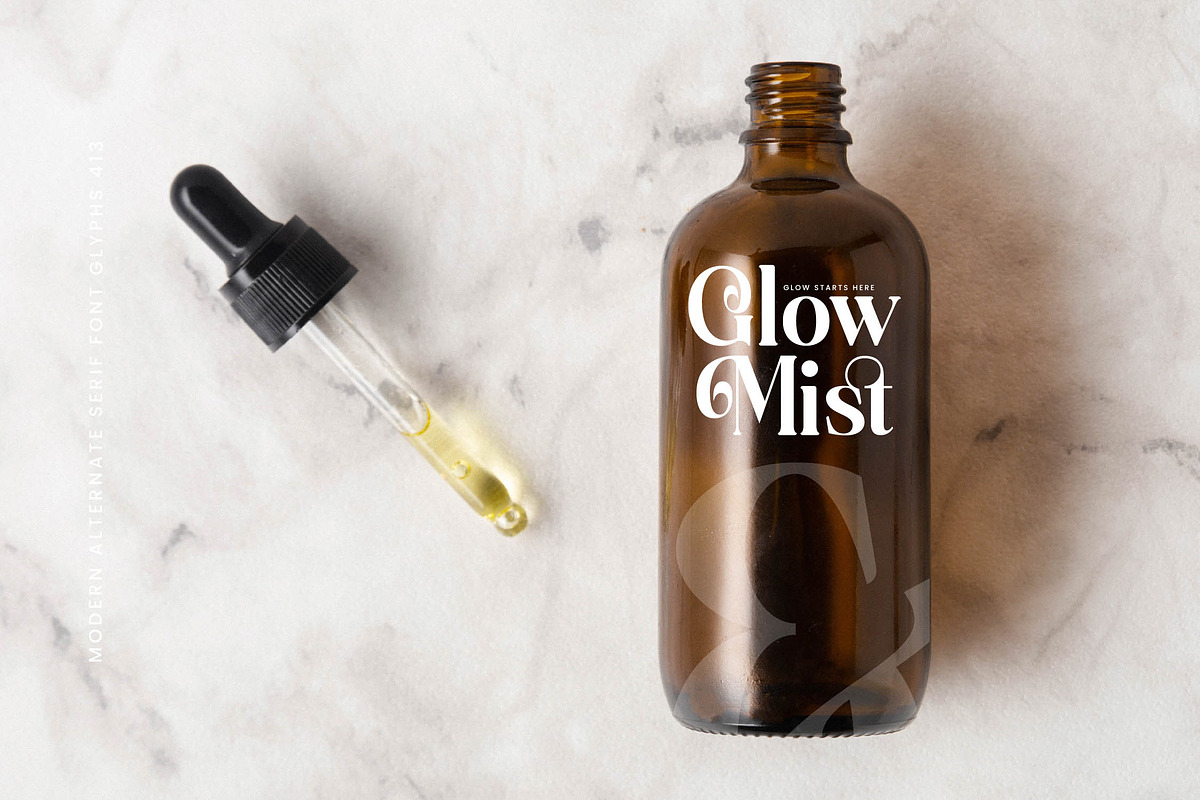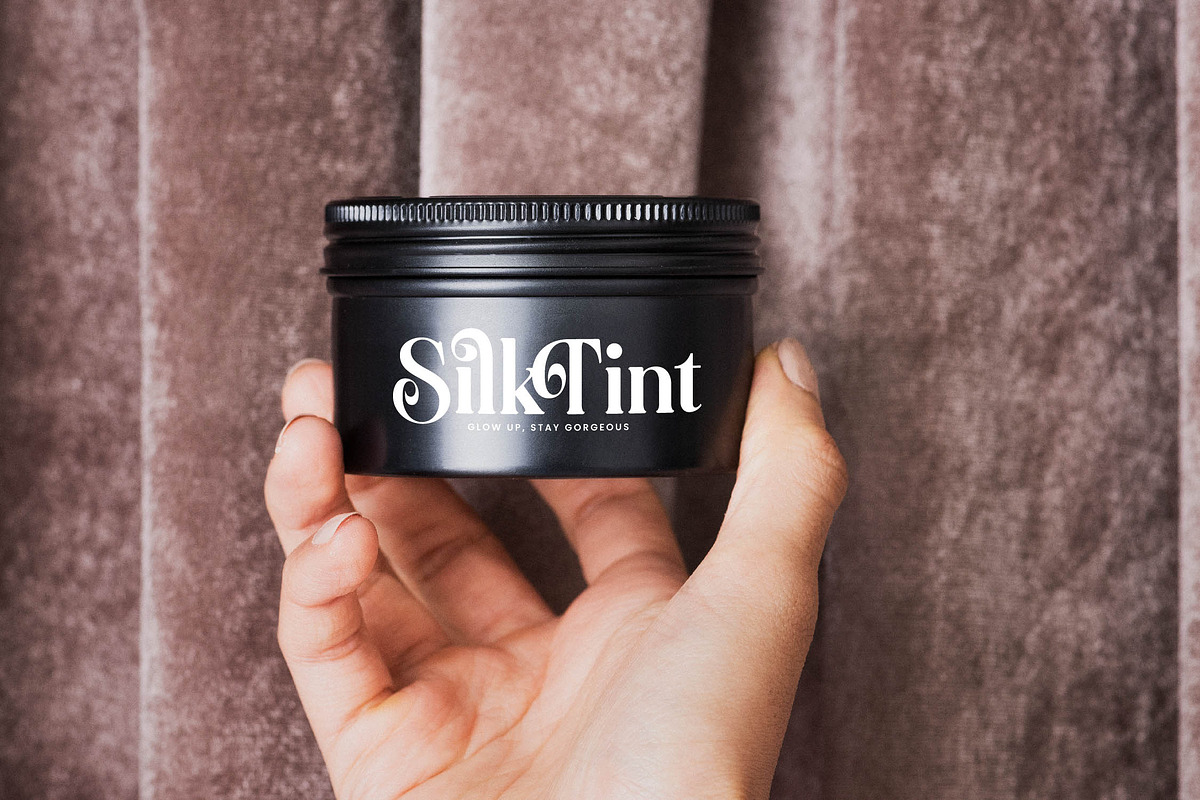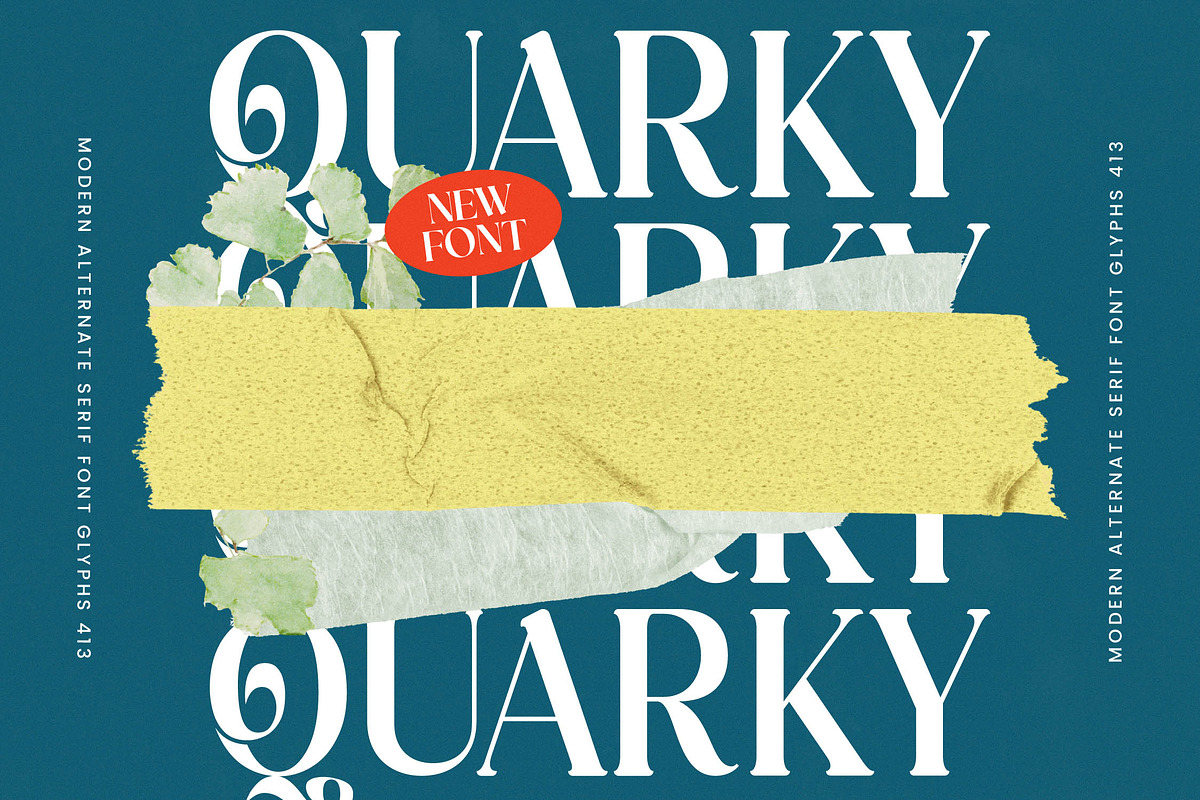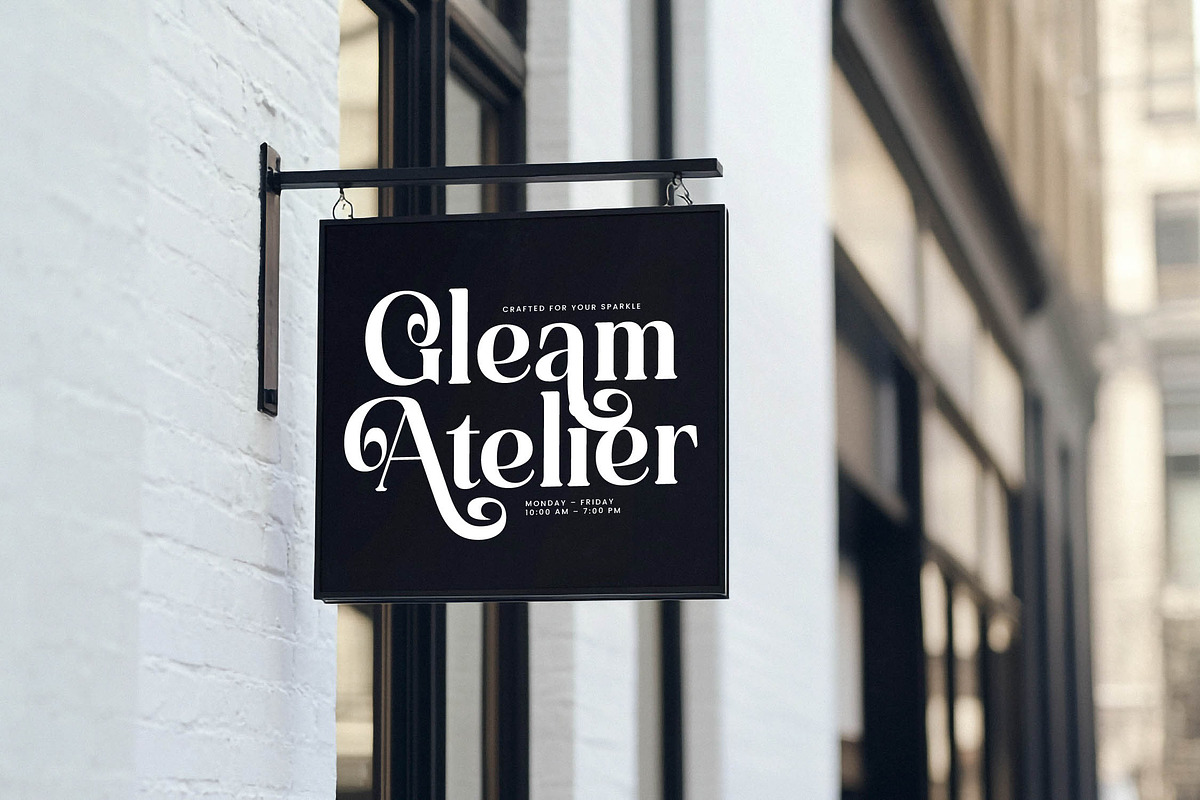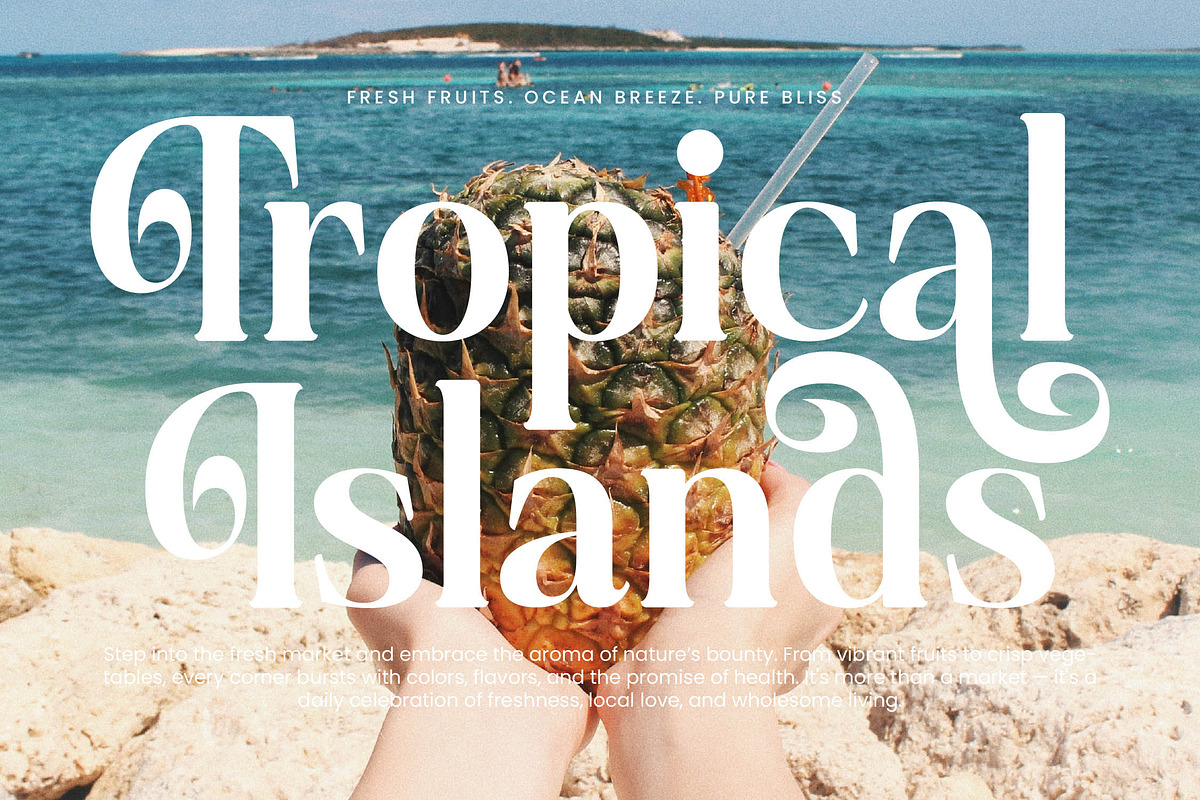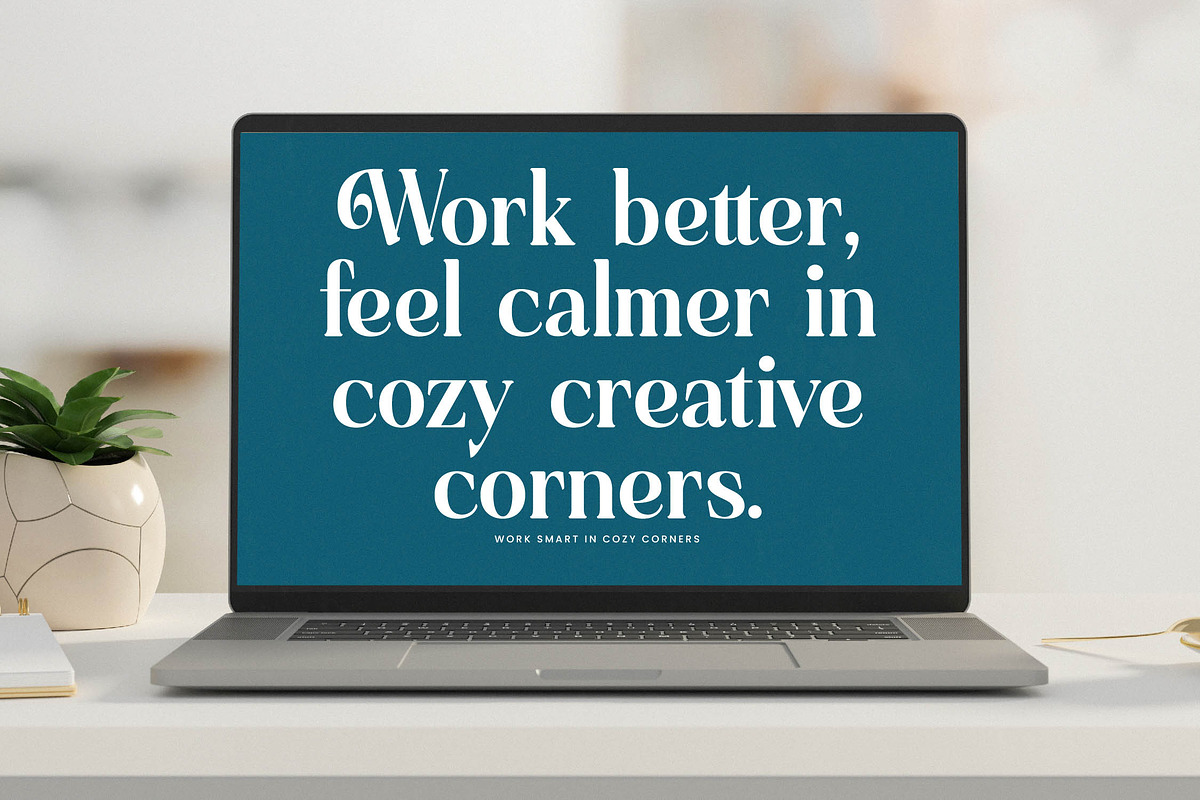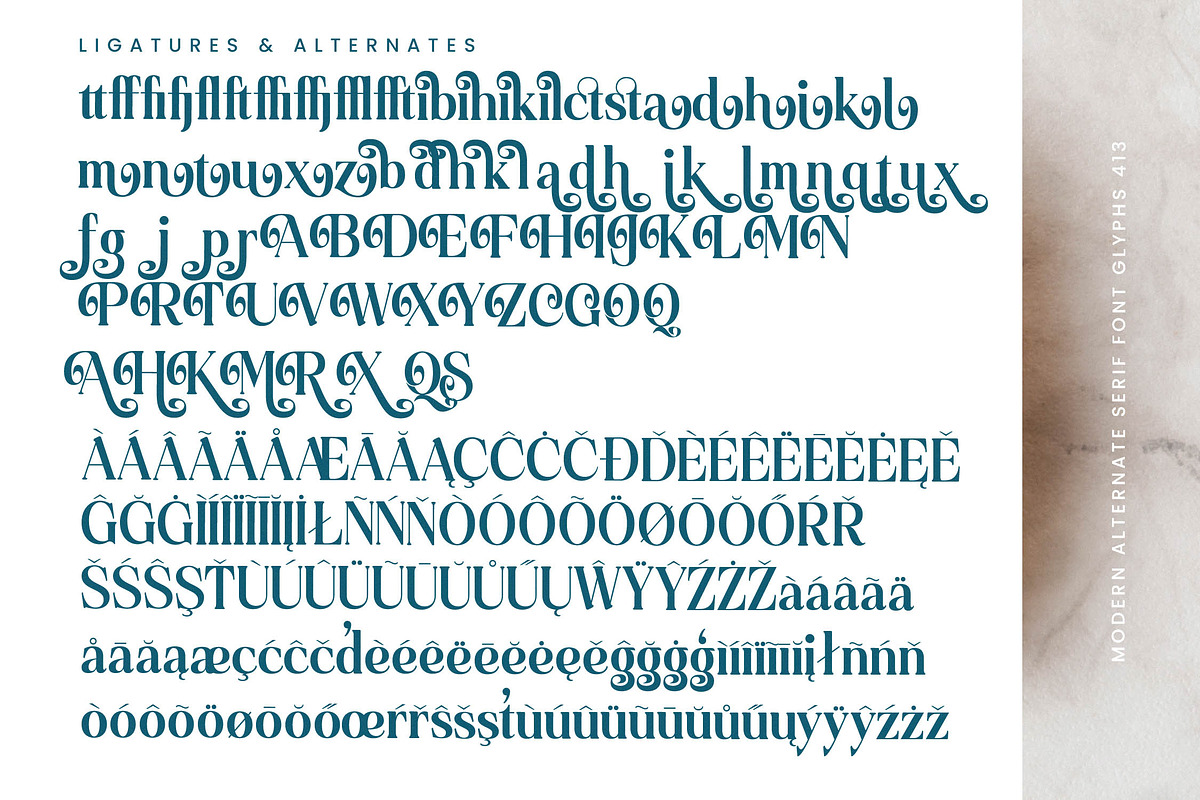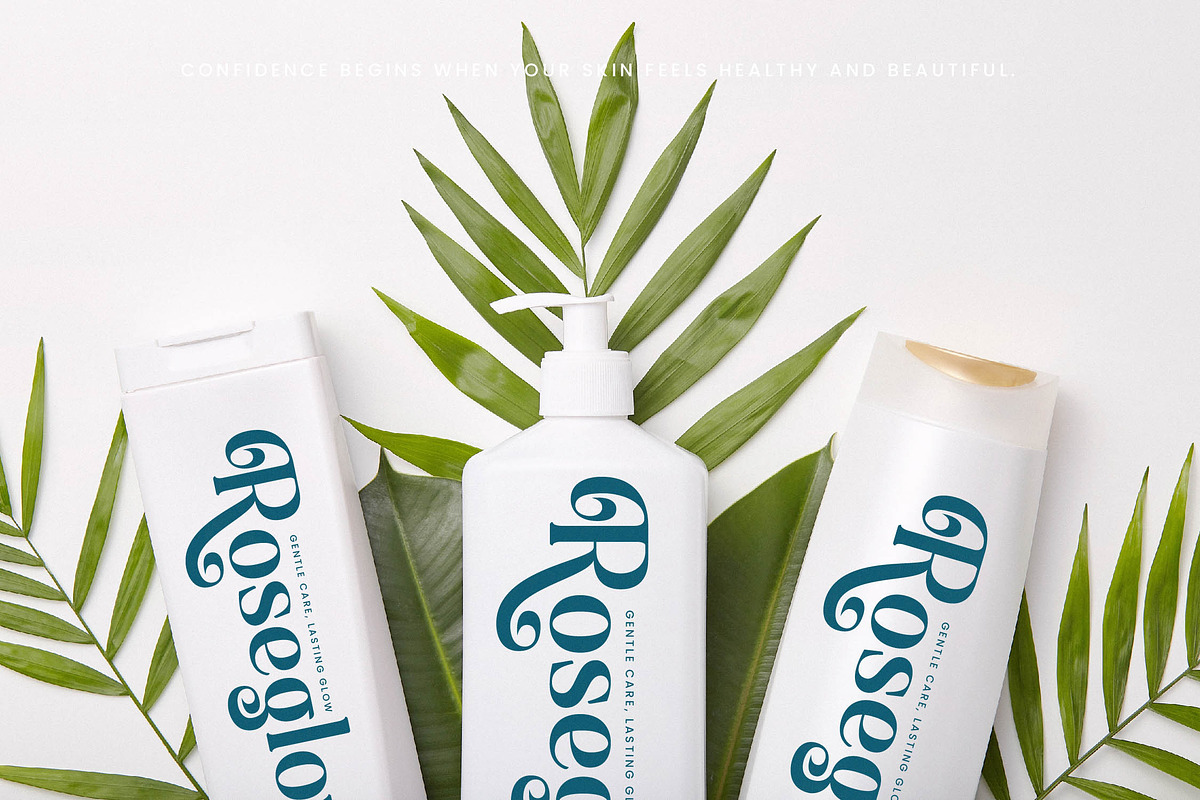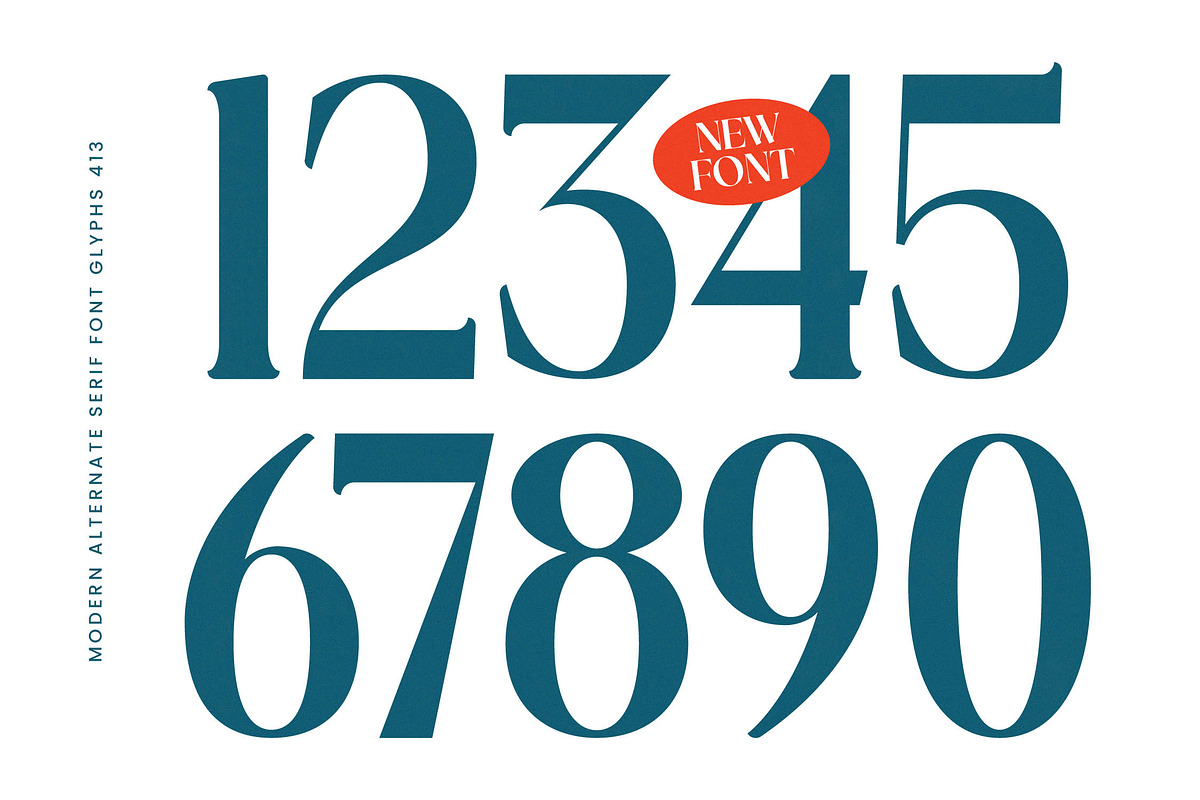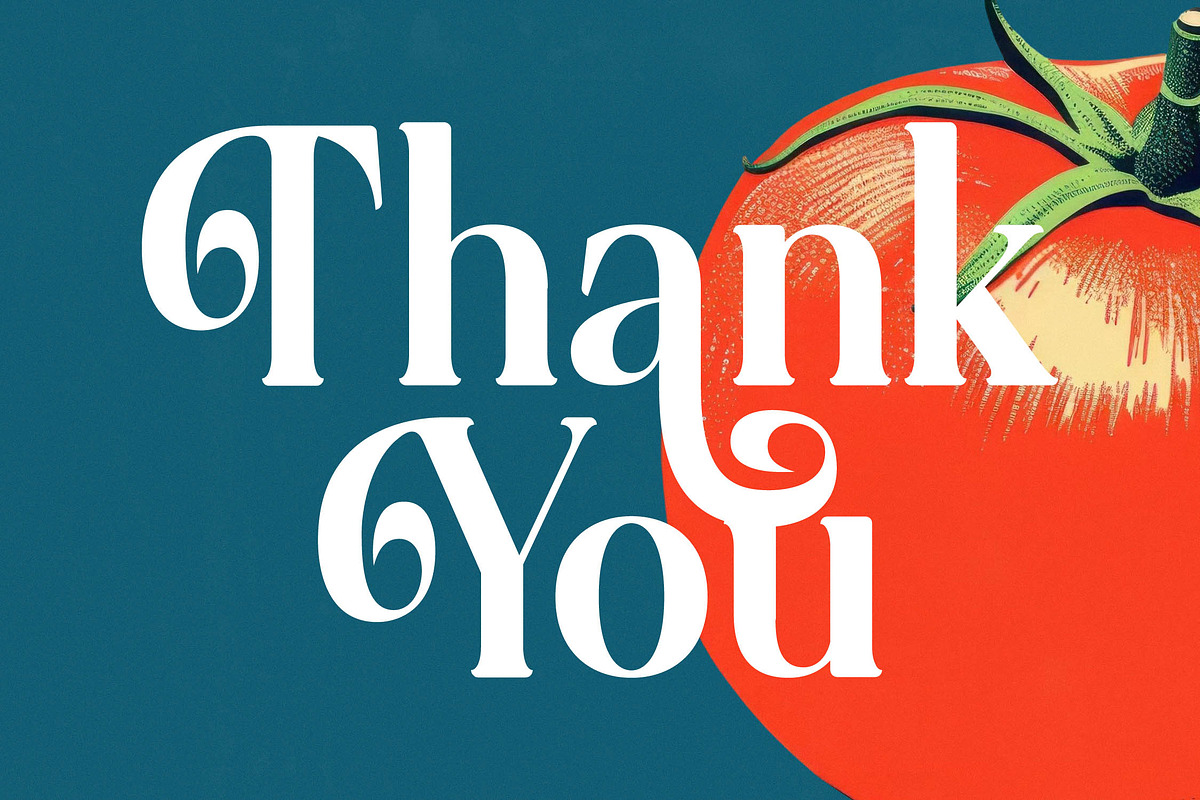
Quarky Kitchen Modern Serif Font
Elevate your creative vision with Quarky Kitchen, a font that dances between classic elegance and modern whimsy. It is the perfect blend of sophisticated curves and bold personality designed to make every word an art piece.
Inspired by the organic shapes of culinary artistry and the vintage charm of mid-century bistro signage, this typeface captures a unique quirky spirit. Its design reflects a balance of sharp serifs and flowing, liquid-like swashes that evoke a sense of handcrafted luxury found in high-end artisanal kitchens.
This modern serif display is engineered for maximum branding impact, offering a level of sophistication rarely seen in standard typefaces. With its high-contrast serif strokes and refined letterforms, it functions as a premium editorial font that commands attention while maintaining a sense of luxury typography.
Staying ahead of the modern serif trend, this typeface meets the demand for character-driven typography that breaks away from minimalist boredom. It aligns perfectly with the current shift toward editorial display fonts that prioritize expressive details and unique visual hooks for high-end digital media.
Ideally suited for high-end logo design and comprehensive branding projects, this font shines in the world of packaging and luxury fashion advertisements. Its romantic yet sharp flair also makes it a stunning choice for wedding invitations and high-concept editorial layouts.
The set is packed with over 400 glyphs, including a vast array of ligatures and alternates that allow for deep customization. It features elegant swashes for a decorative touch and offers full multilingual support with a comprehensive range of international characters to serve a global design market.
- Ligature 016 Alternate 067